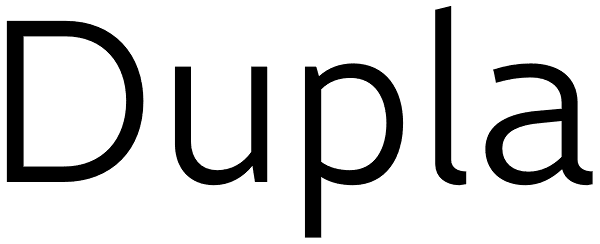
Dupla
When Dupla was designed, its DNA shown the best of the typographic heritage from the XIX century types, the oldest san serif known, also named as “Grotesk”, a soft synonym for bizarre, unnatural weird. XIX century Germans' eyes were surprised...